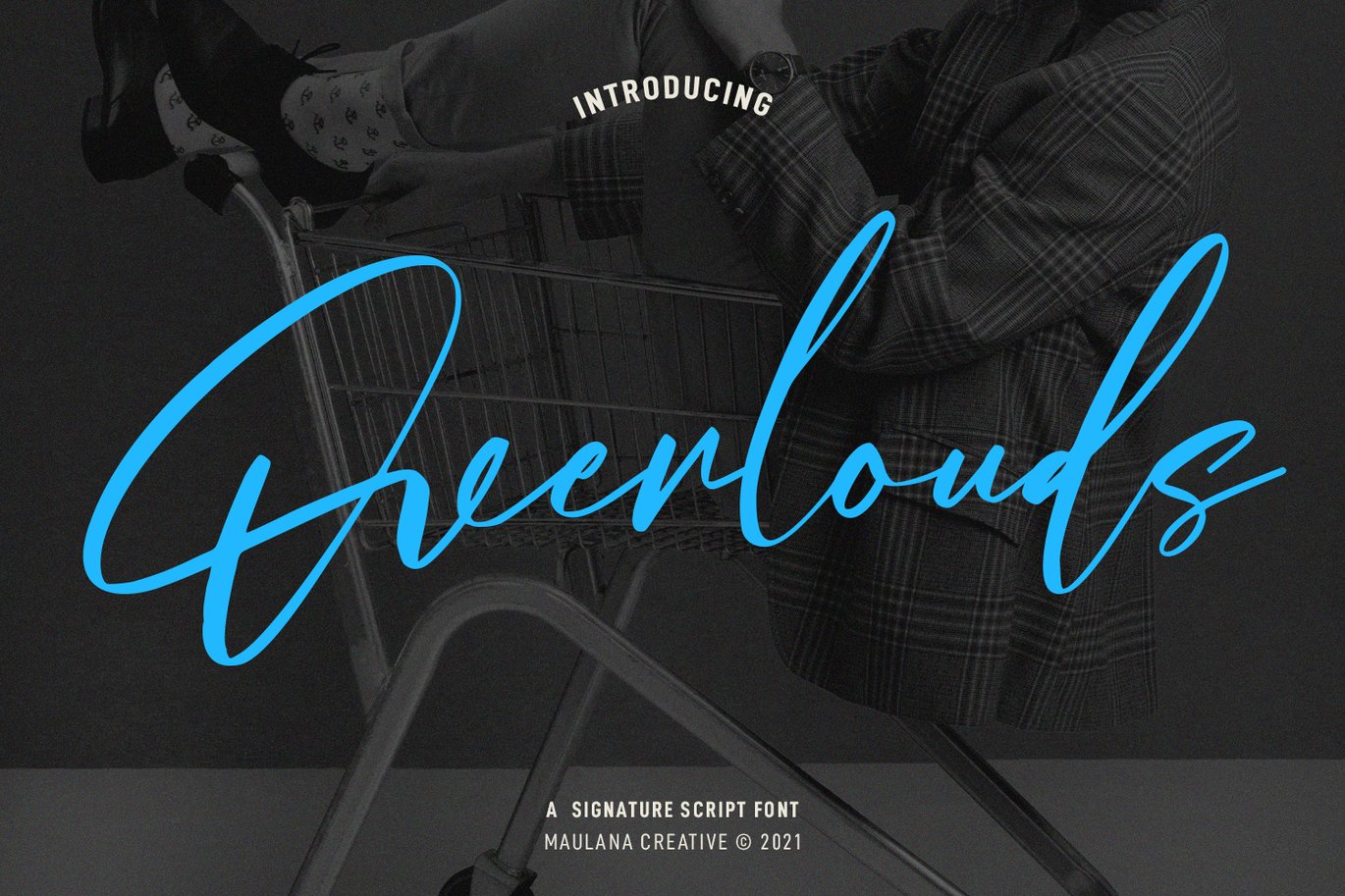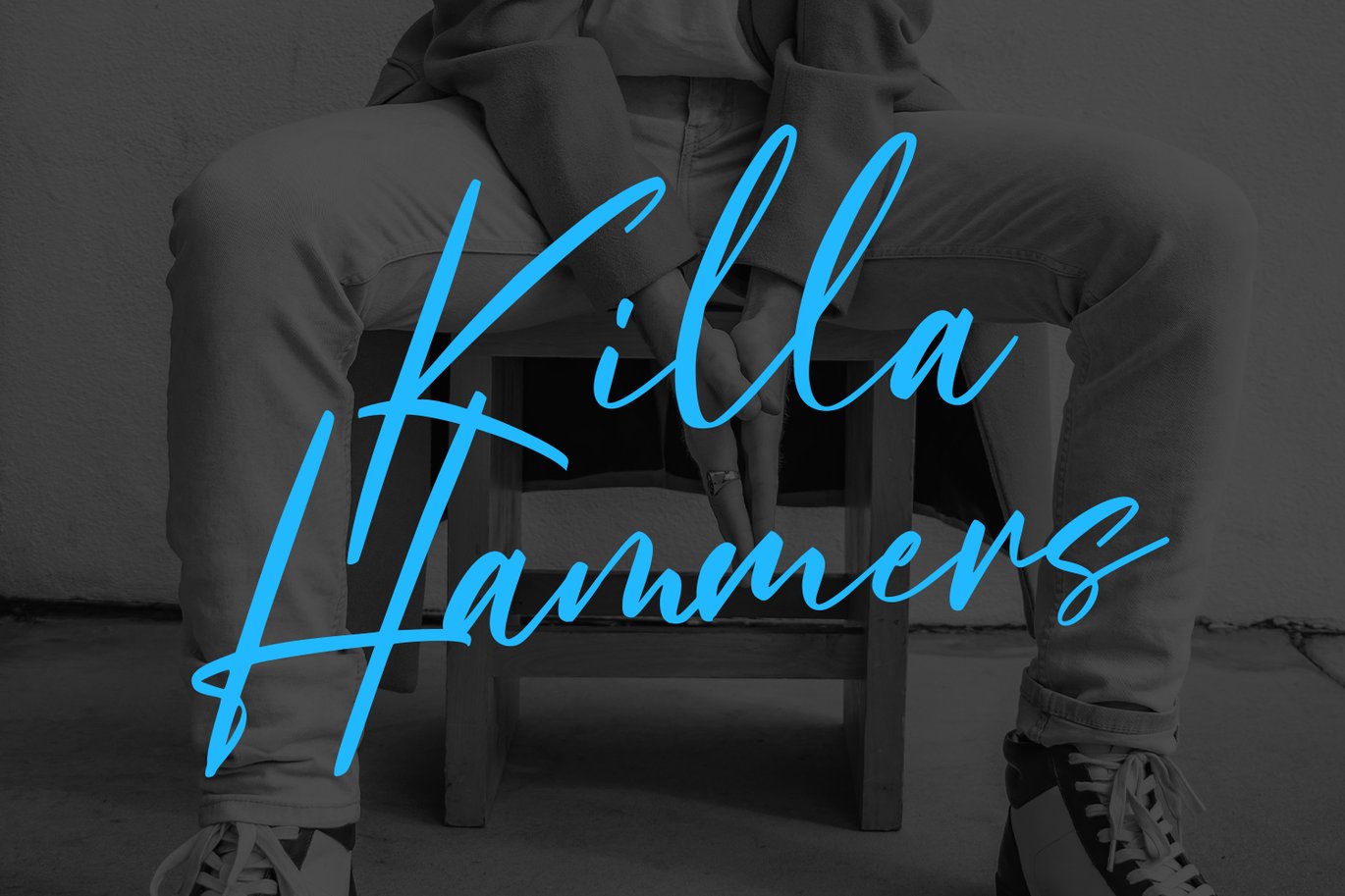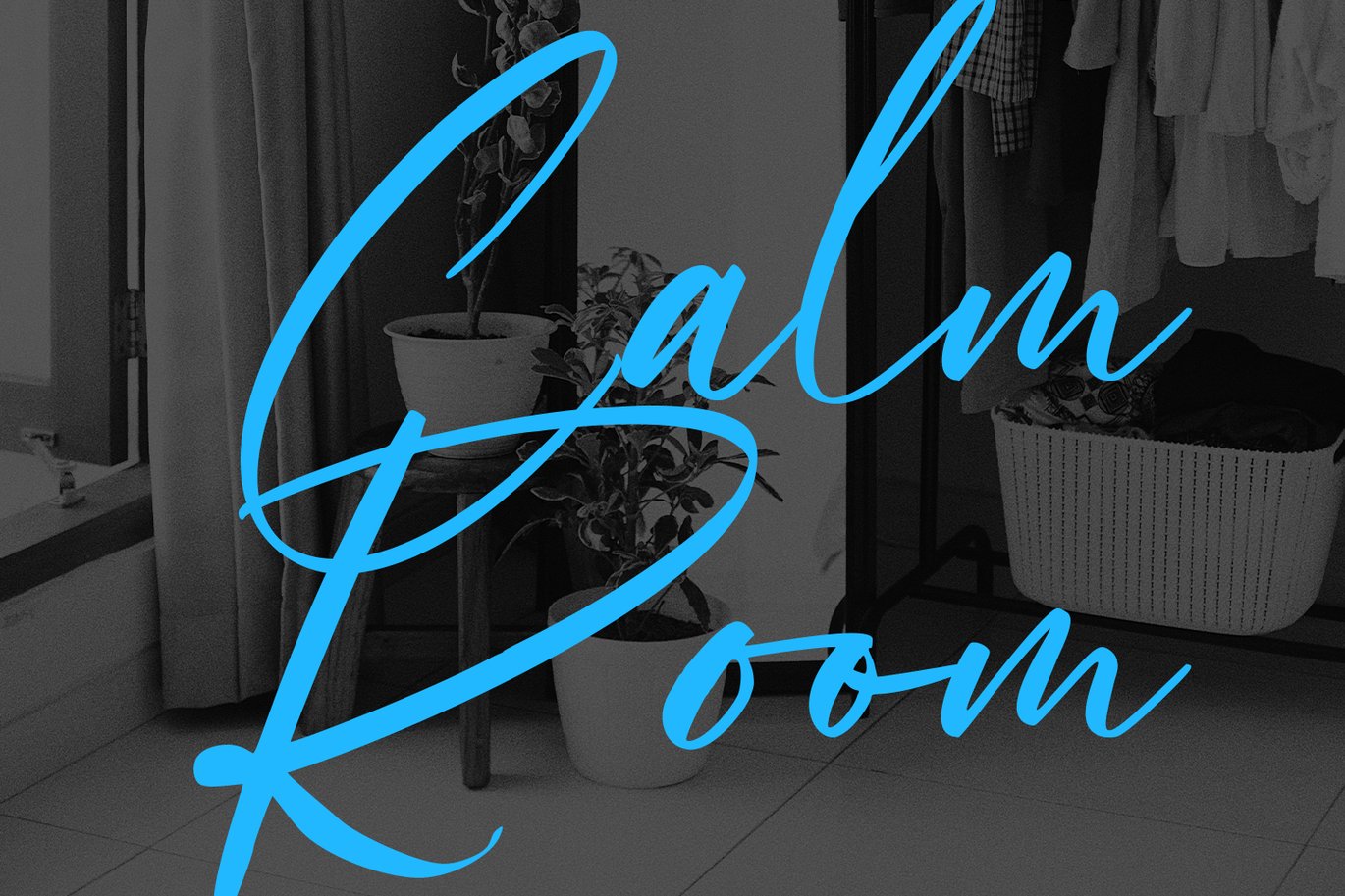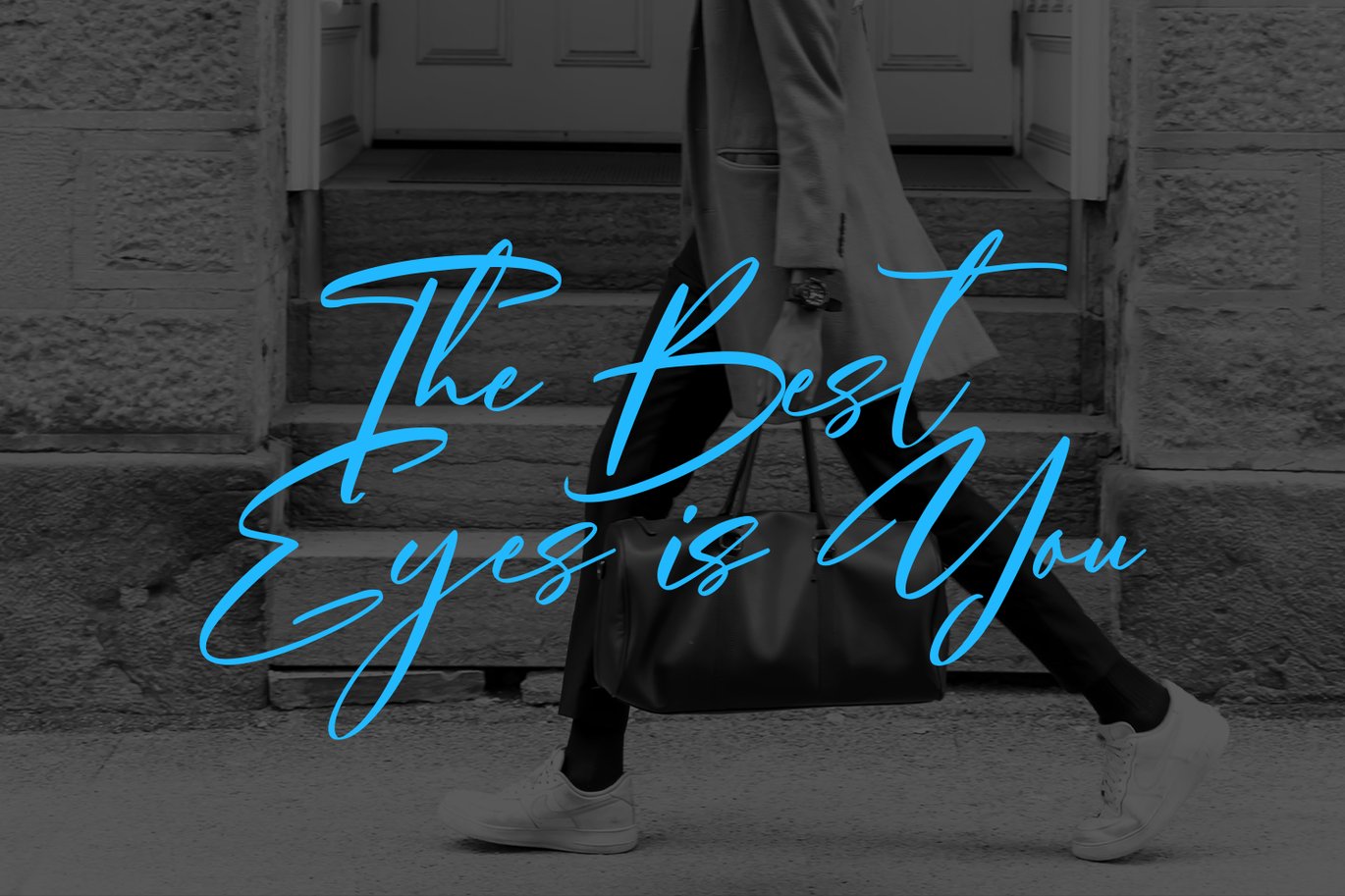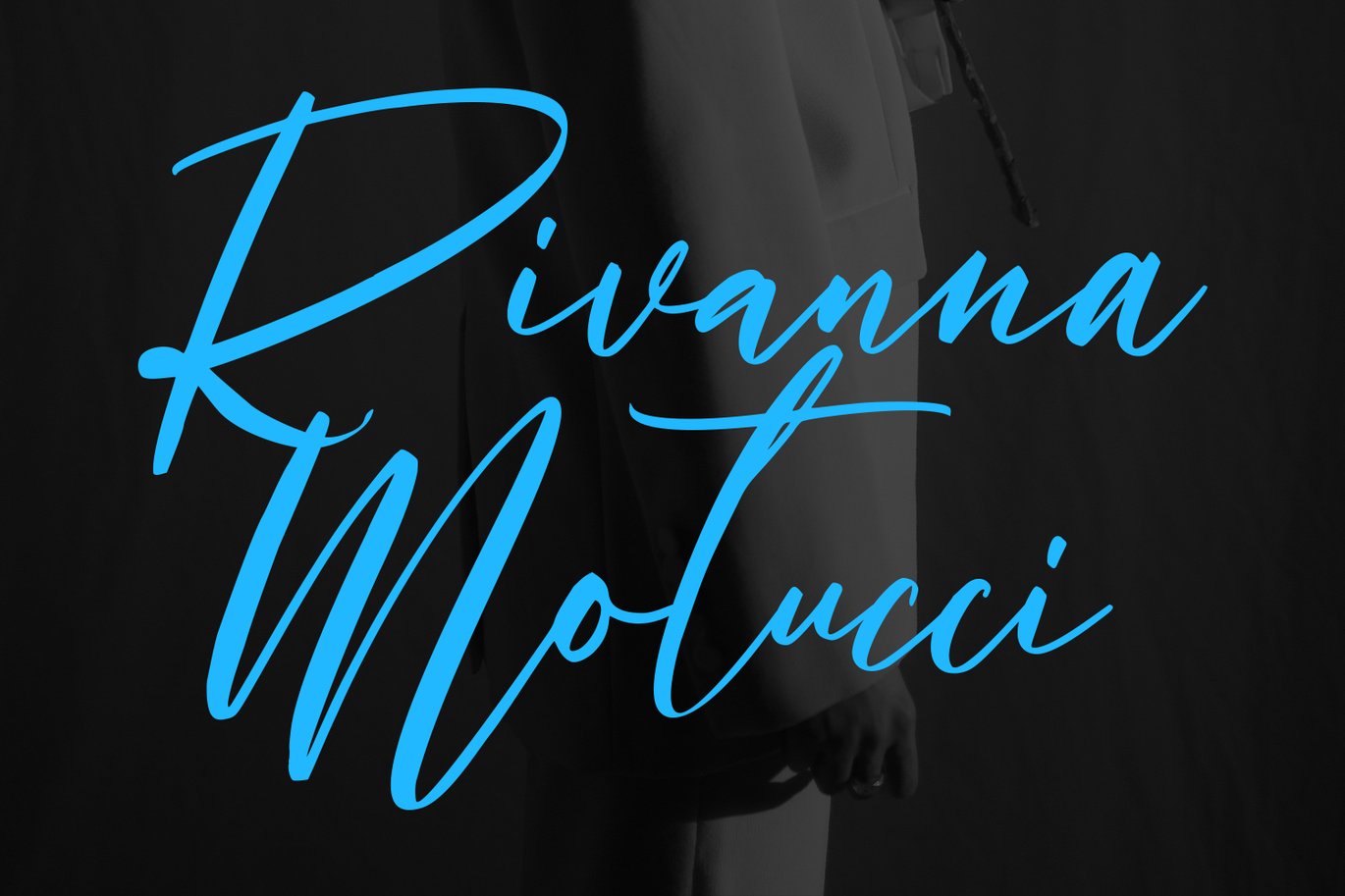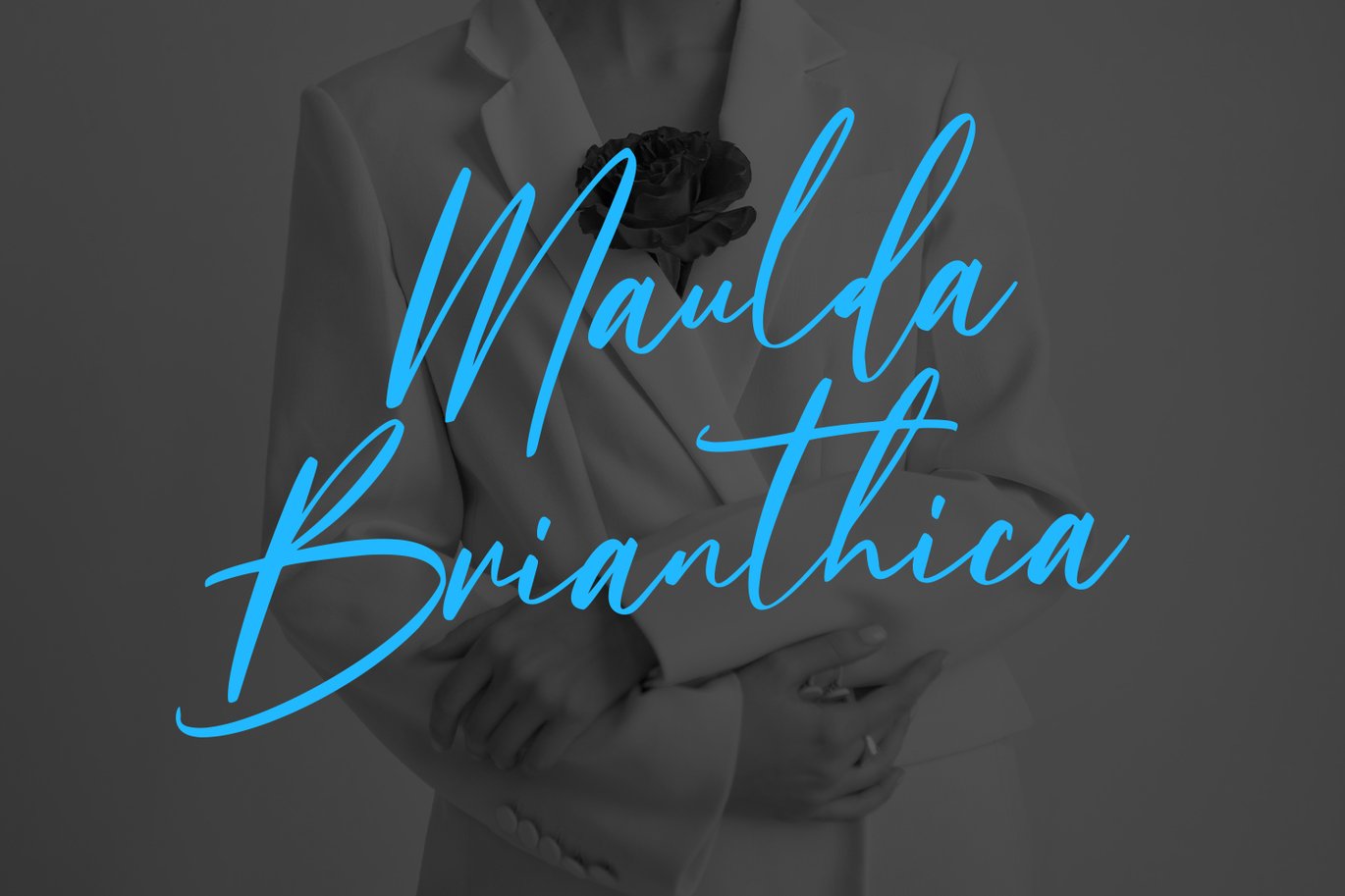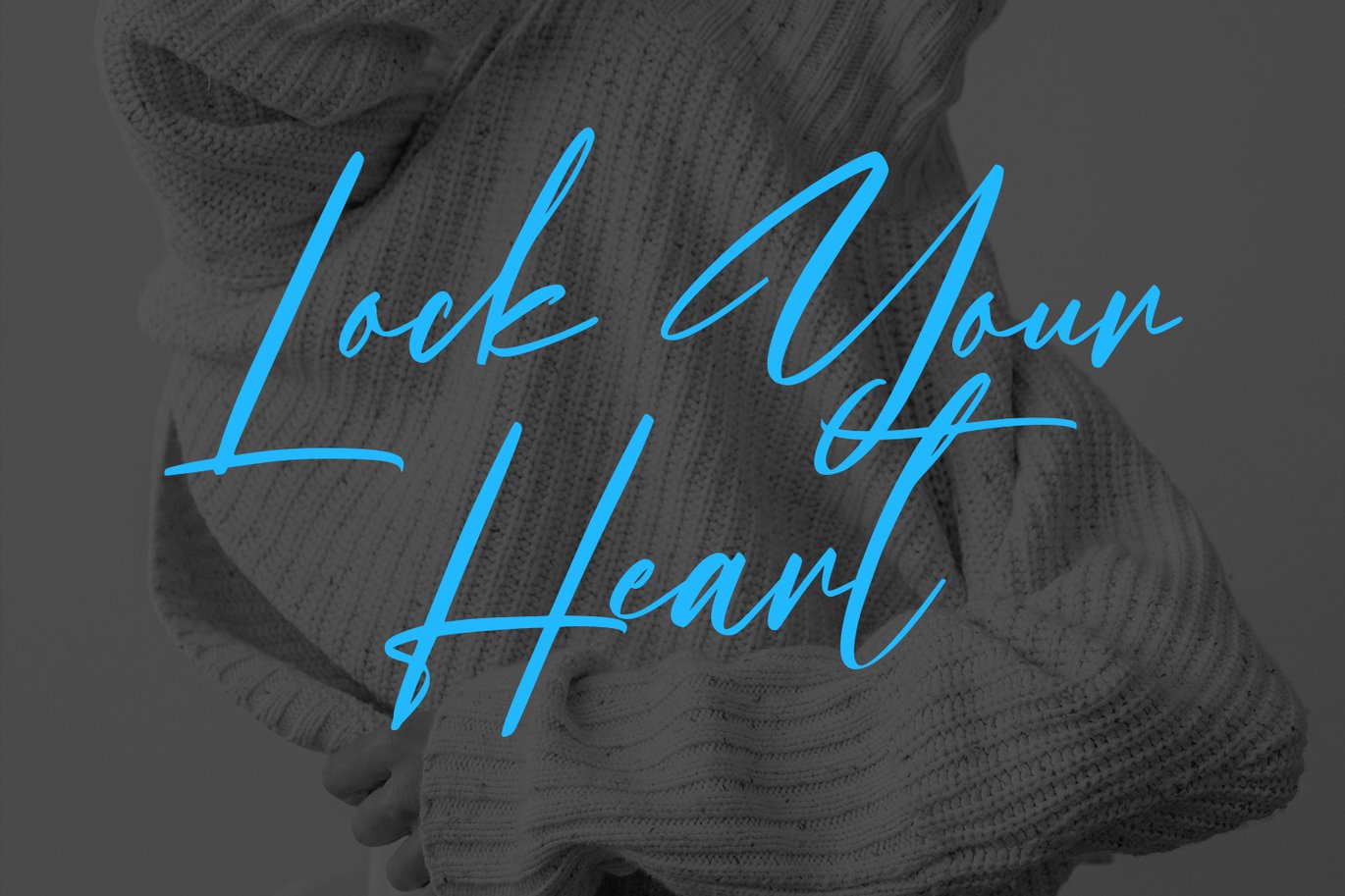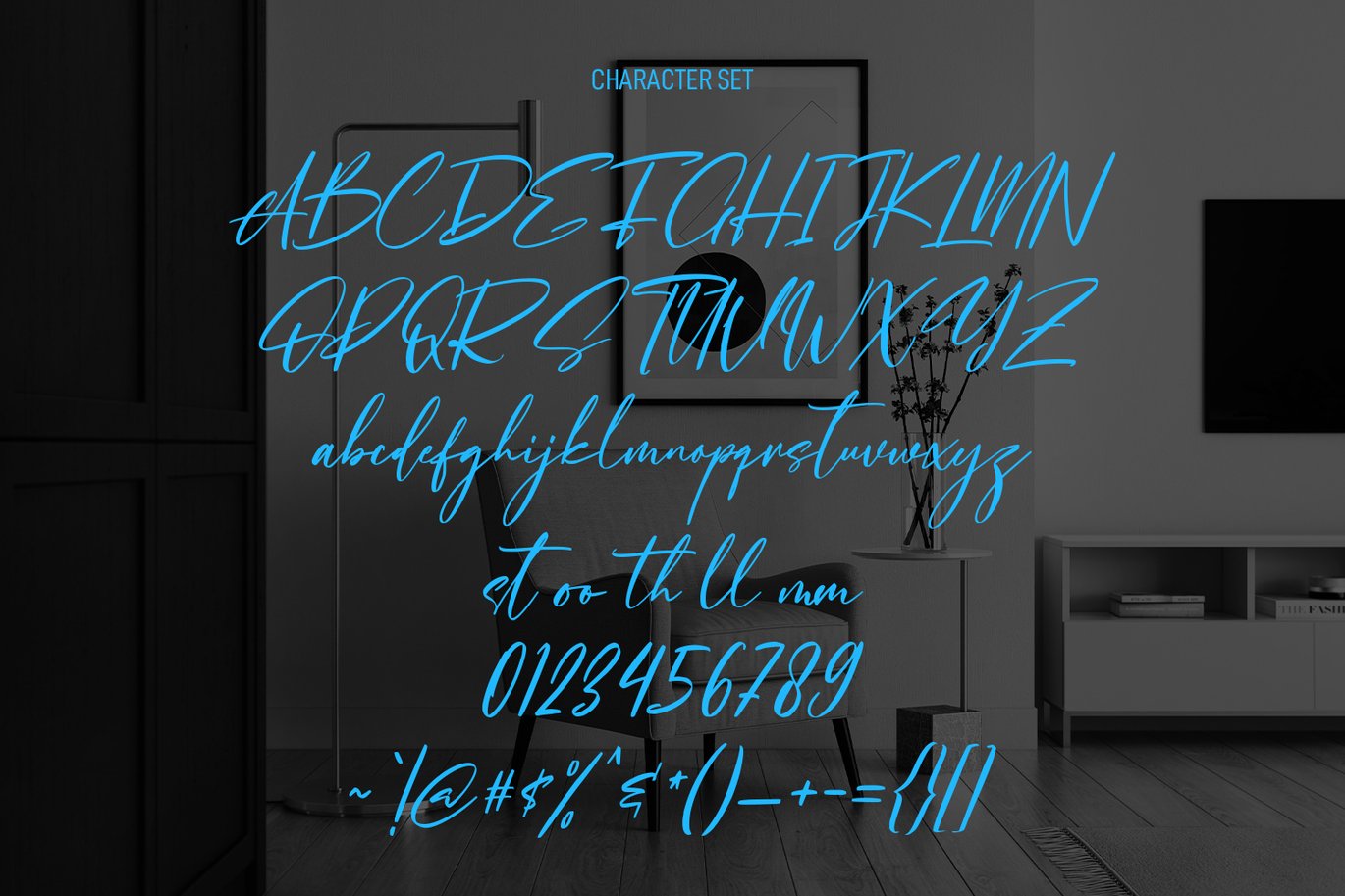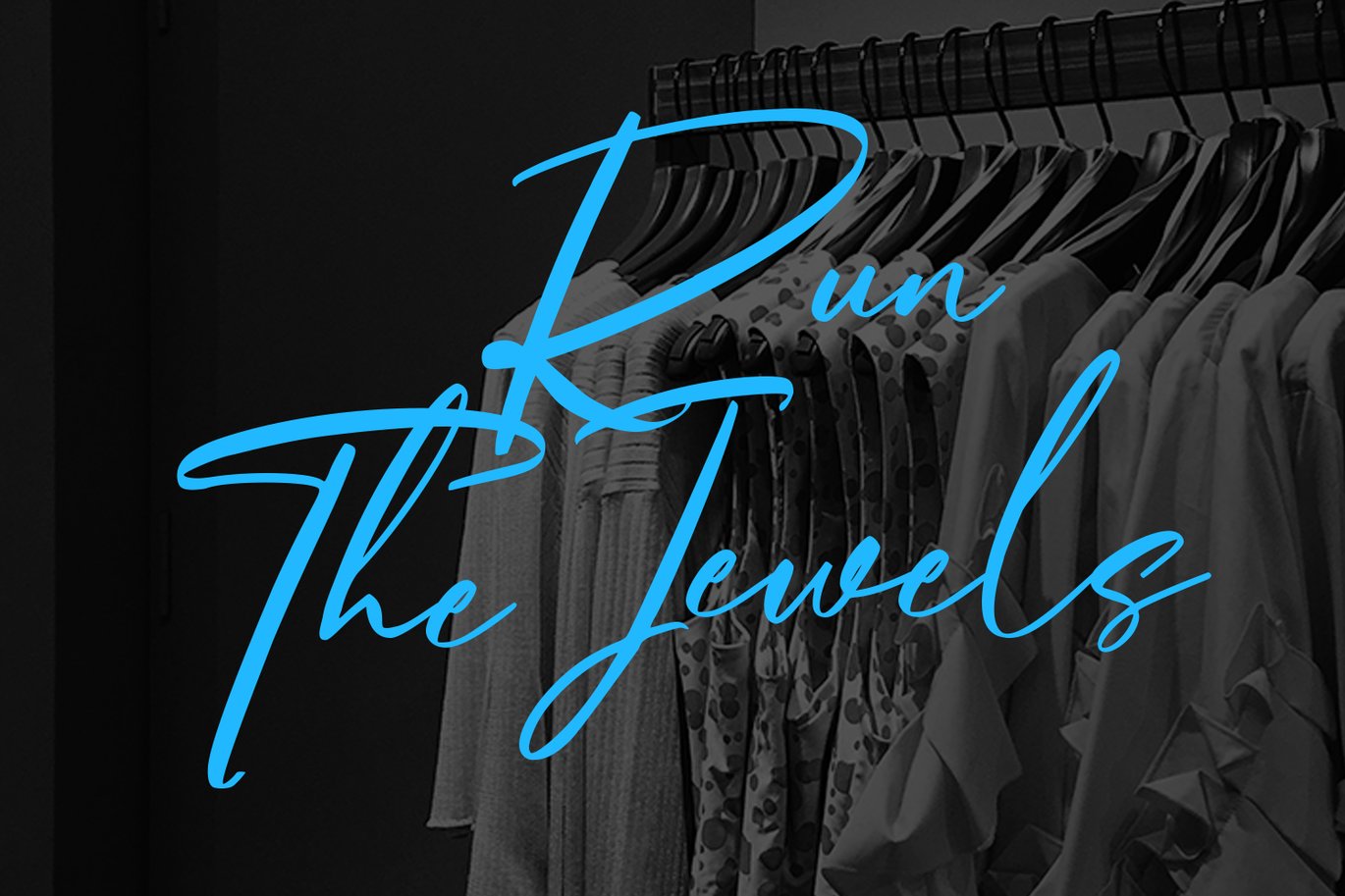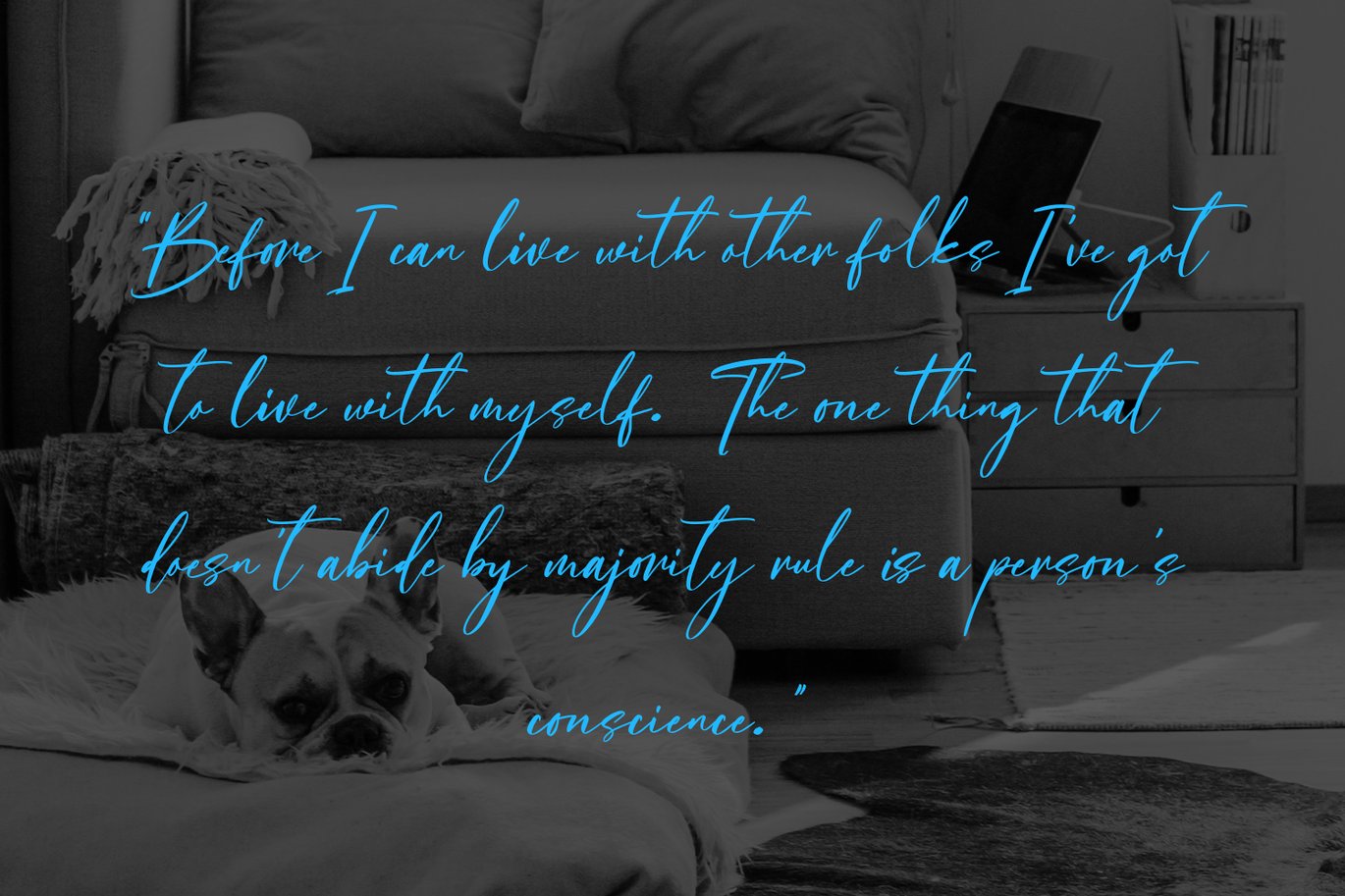
Overlouds Signature Font
Overlouds is a signature script font. With high contrast regular stroke, fun character with a bit of ligatures. To give you an extra creative work. Overlouds font support multilingual more than 100+ language. This font is good for logo design, Social media, Movie Titles, Books Titles, a short text even a long text letter and good for your secondary text font with sans or serif. Make a stunning work with Overlouds font.